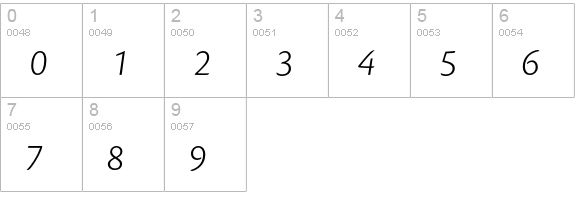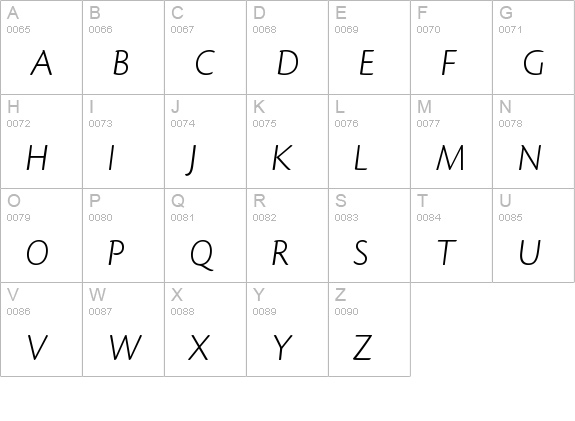
Cronos Pro Light Caption Italic Font Details
Cronos Pro Light Caption Italic is a refined, elegant, italic variant in the Cronos typeface family \xE2\x80\x94 well suited to elegant body text, refined sub-headings, and luxury branding.
Cronos Pro Light Caption Italic is a graceful and sophisticated font that exudes elegance and modernity. Its slanted italic design adds a touch of dynamic flair to any project, making it ideal for captions, quotes, and headlines. The delicate strokes and subtle curves of this font create a sense of refinement and style that is perfect for adding a touch of sophistication to your designs. Best of all, Cronos Pro Light Caption Italic is available for free download at FontsMarket.com. This means you can easily access this beautiful font and use it in your projects without any cost. Don't miss out on this opportunity to enhance your designs with the timeless elegance of Cronos Pro Light Caption Italic. Download it today and elevate your creations to new heights of style and sophistication.